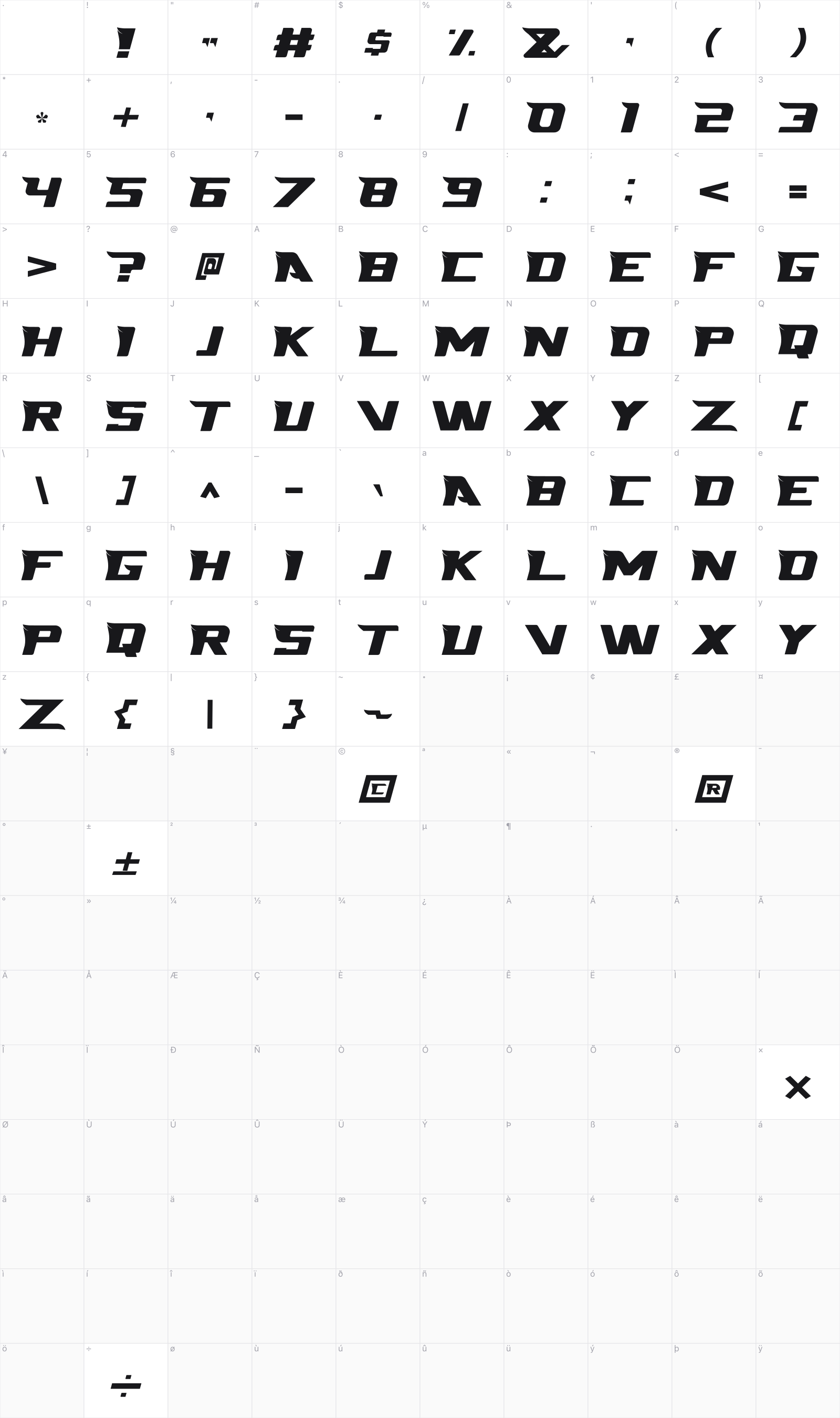
Prohero
Prohero is a bold, distressed italic display font with aggressive slash-cut details carved through its thick strokes. The strong forward italic angle and fragmented incisions give it an action-packed, high-velocity feel. Built for headlines, game titles, and posters that need raw energy.